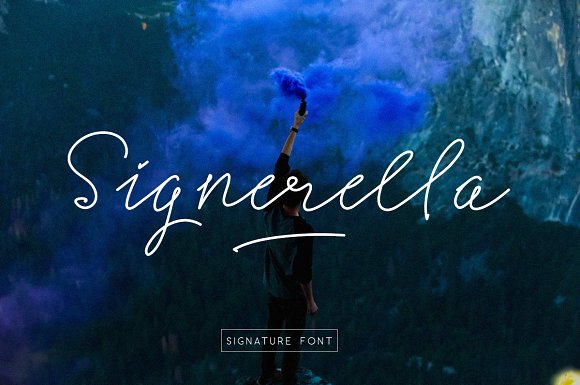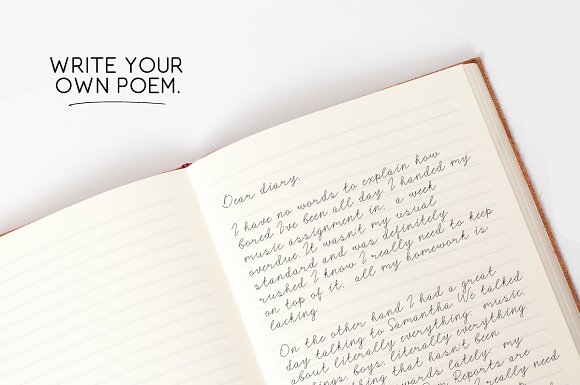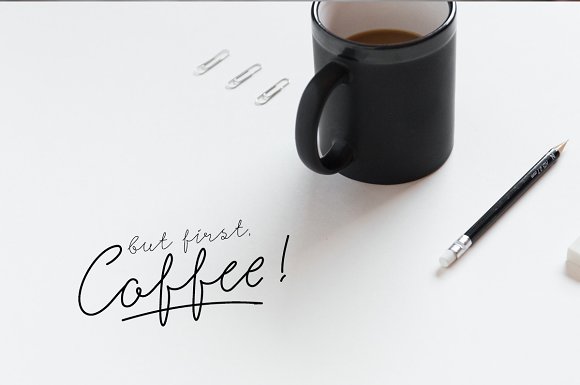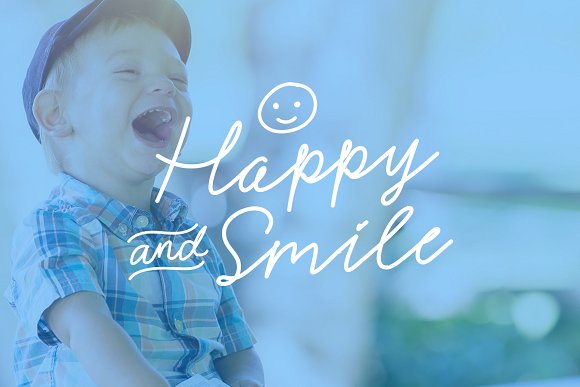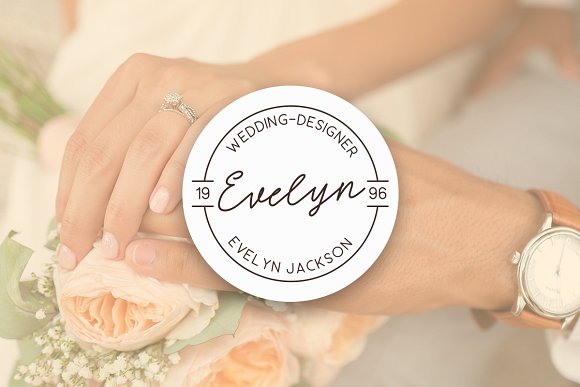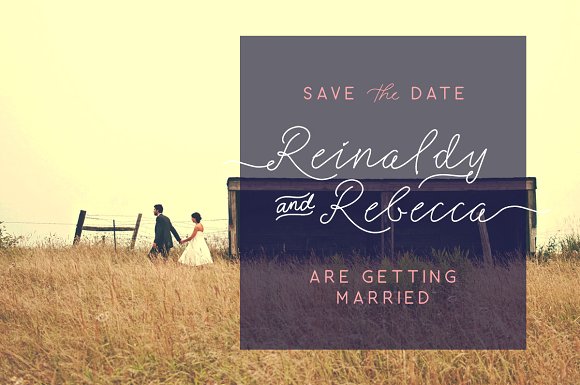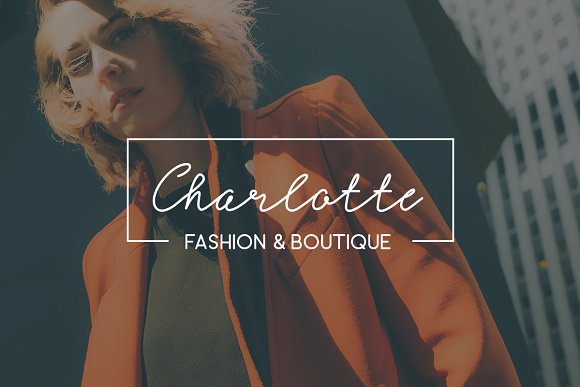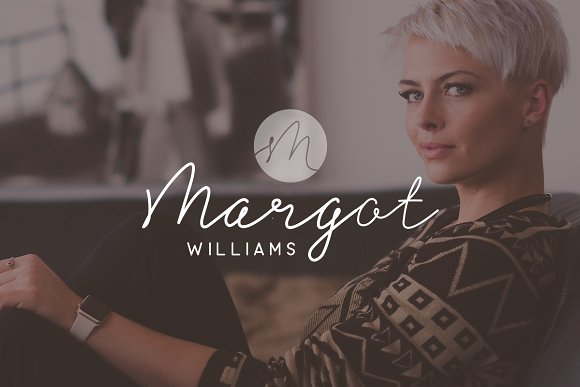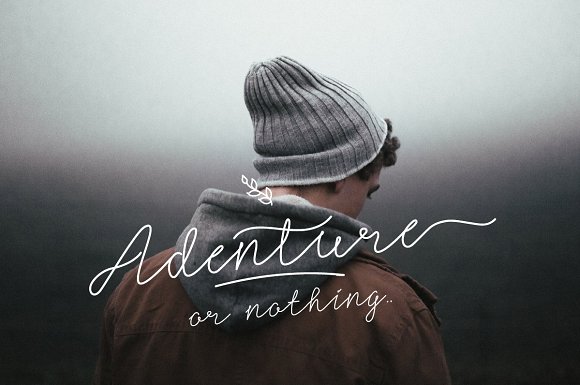
HomeScript FontsSignerella Font Script Fonts Signerella Font FacebookXPinterestWhatsApp Signerella Font Poster 2 Signerella Font Poster 3 Signerella Font Poster 4 Signerella Font Poster 5 Signerella Font Poster 6 Signerella Font Poster 7 Signerella Font Poster 8 Signerella Font Poster 9 About Signerella Font Signerella consists out of a thin original handwritten style font and include a complementary sans font. DOWNLOAD ON CREATIVE FABRICAThis font is sold and delivered by Creative Fabrica. Font Canyon may earn a commission if you buy through this link. People also explored Riverside Avenue Font Teacher Font Bercahi Font Vista La Diva Font Green Avocado Font Mandala Font Pizza Dough Font Merlandia Font Candreeva Font 357 0 TagsSignerella Font Previous articleMomenttion FontNext articleVanillate Font LEAVE A REPLY Cancel reply Comment: Please enter your comment! Name:* Please enter your name here Email:* You have entered an incorrect email address! Please enter your email address here Website: Save my name, email, and website in this browser for the next time I comment. Personal Use Free Round Geometric Personal Use Free Read more about this font Electroharmonix Personal Use Free Read more about this font Malinda Personal Use Free Read more about this font Butter Belly Personal Use Free Read more about this font BLOG Using Fonts in Digital Marketing: Tips to Strengthen Your Brand Identity In the realm of digital marketing, every visual element plays a crucial role in shaping a brand's identity, and fonts are no exception. The... Modern Sans-Serif Fonts That Brands Love in 2025 How to Install and Use Fonts on Windows, macOS, and Web Projects Exploring Font Trends